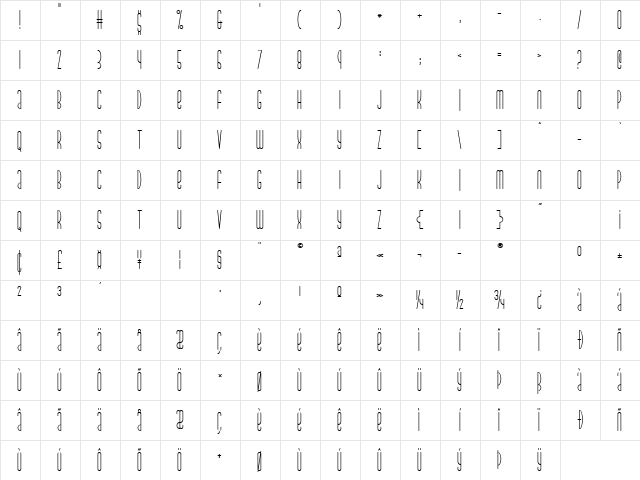
Parkland Regular
Design Context for Parkland Typeface
Parkland takes a measured approach to typography — its balanced proportions and neutral character make it a reliable workhorse for both digital and print work.